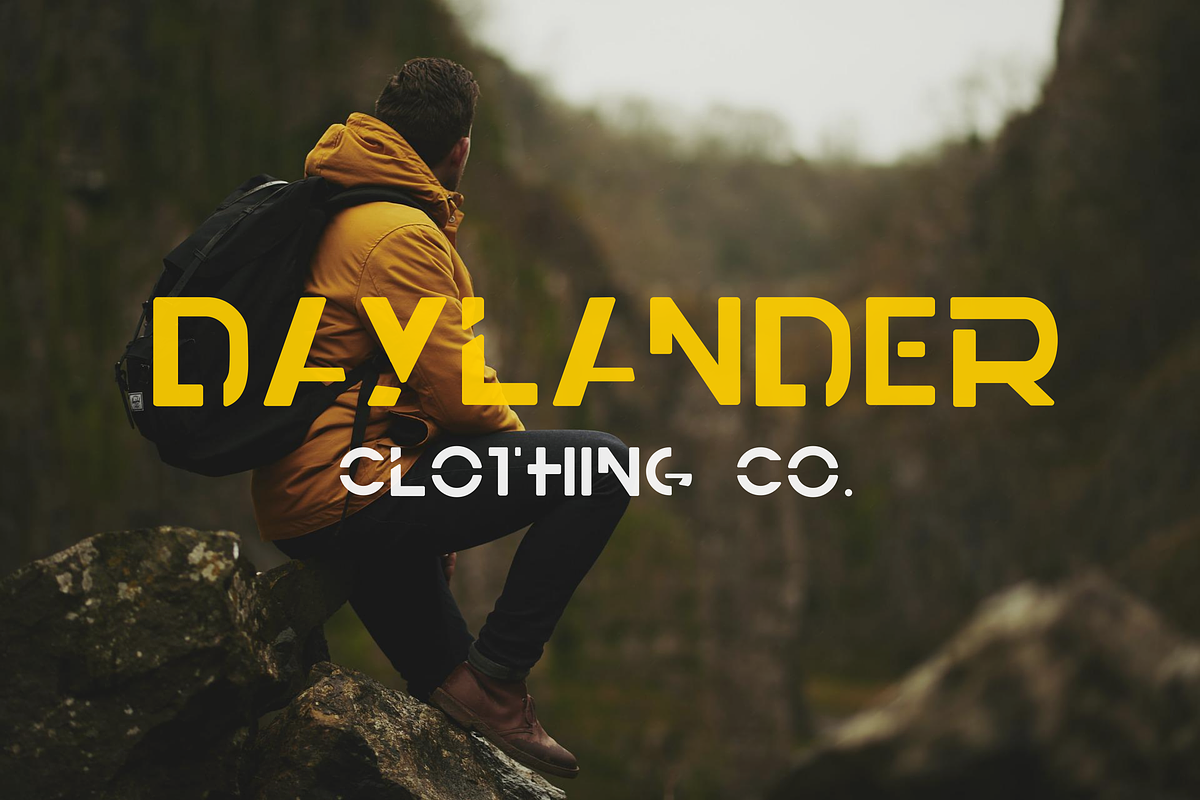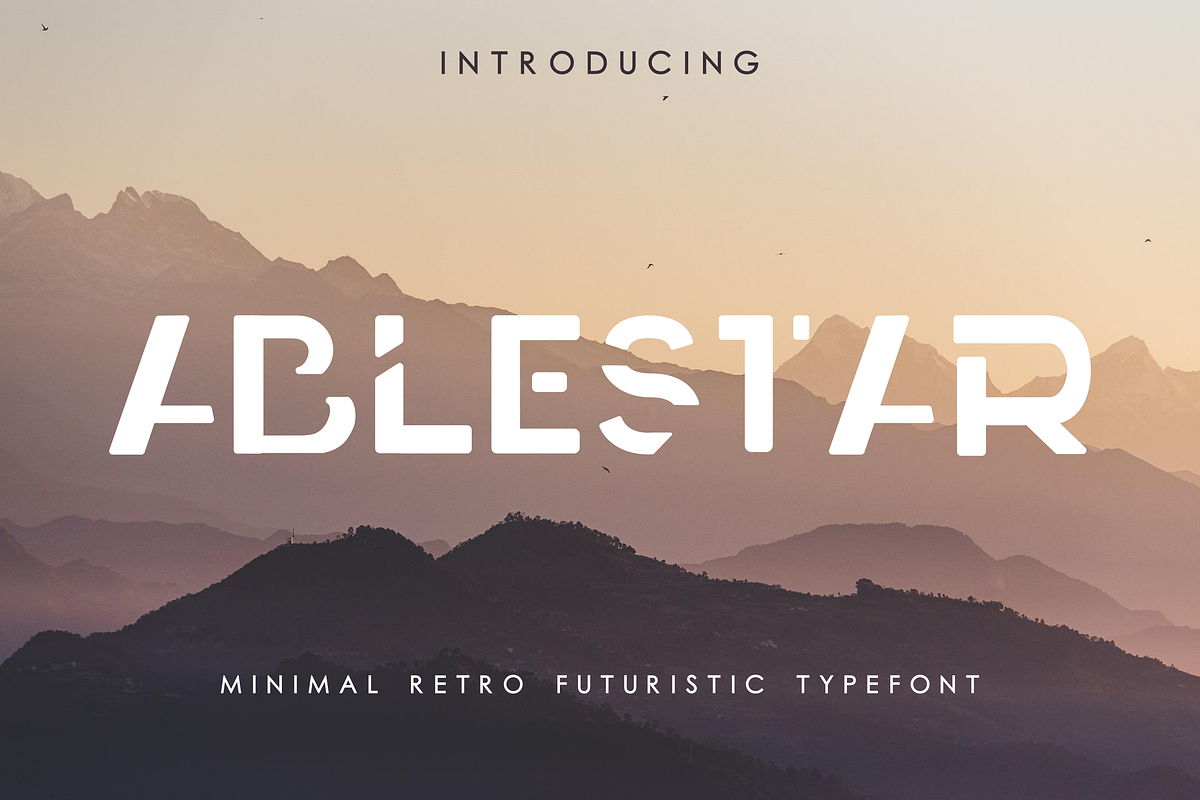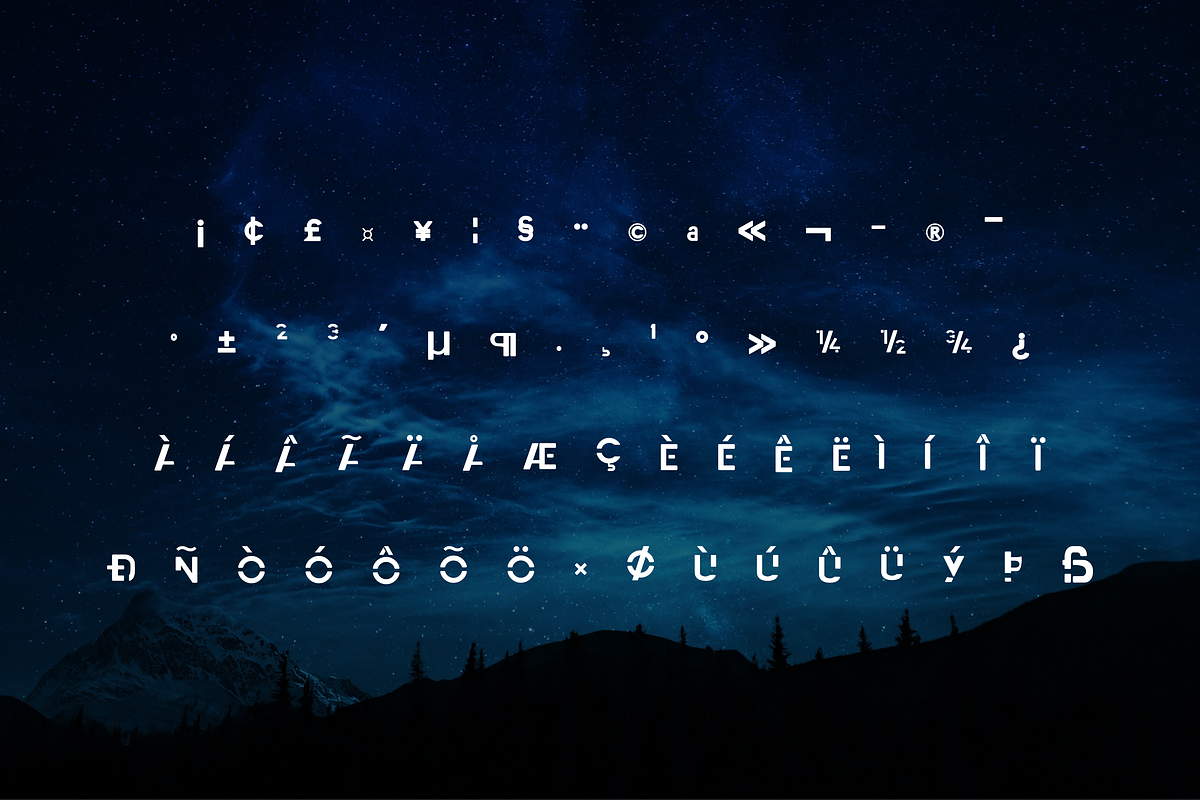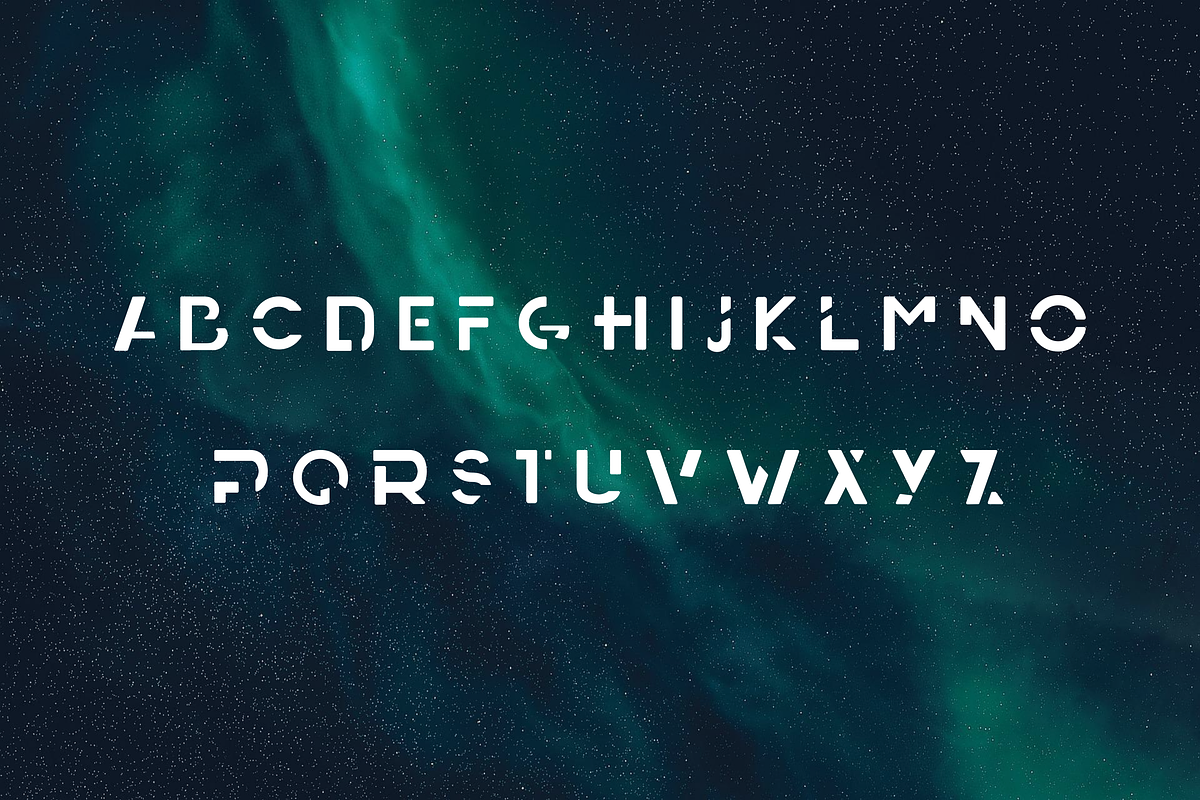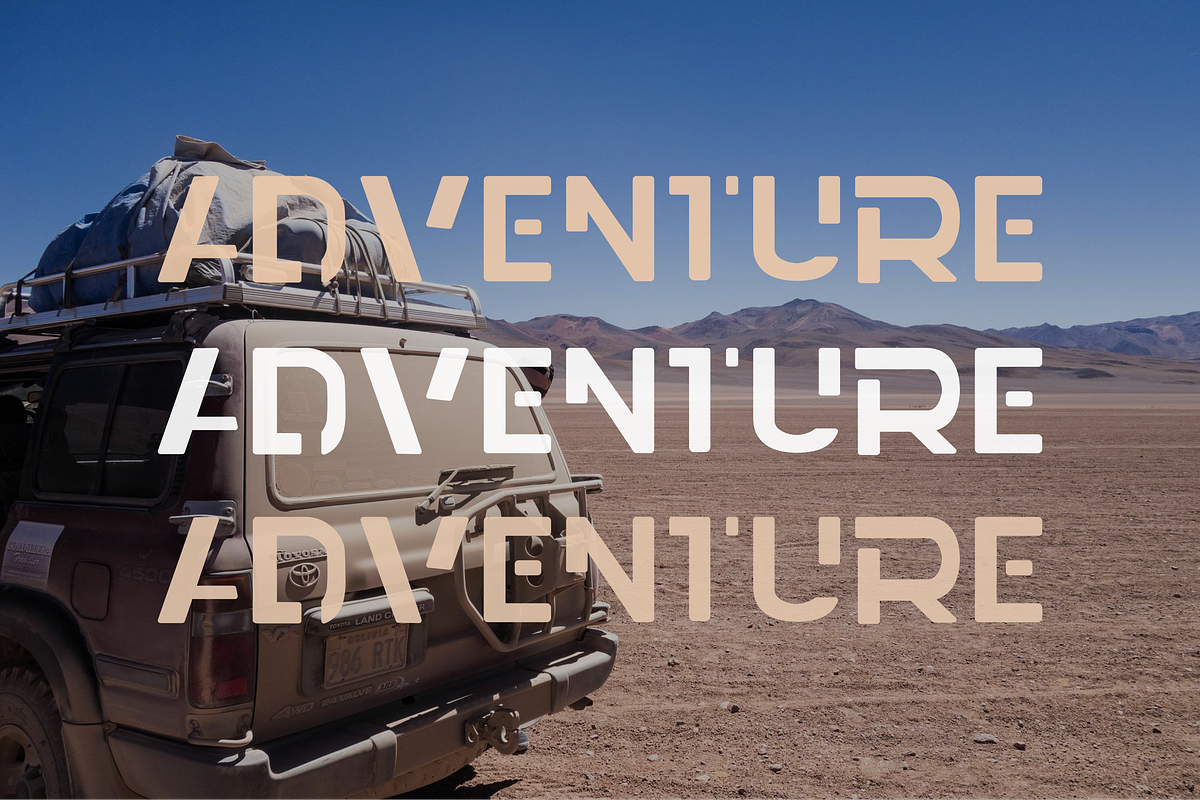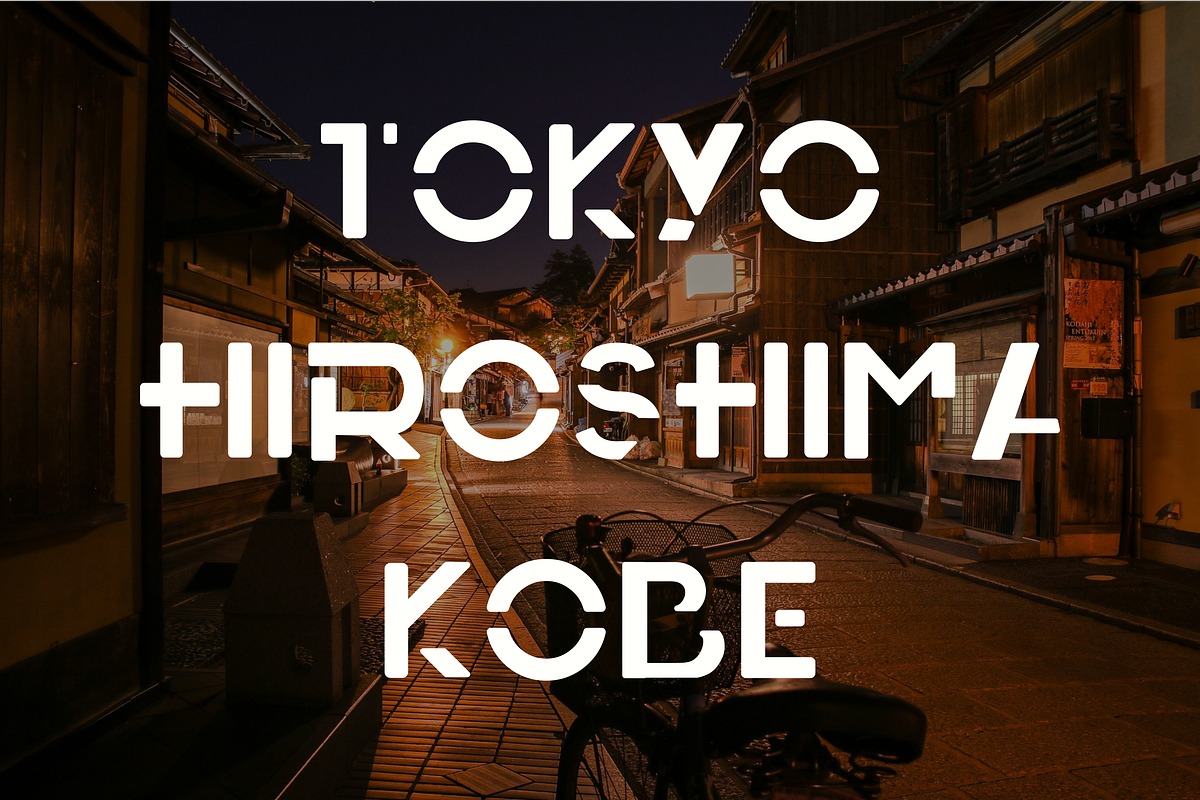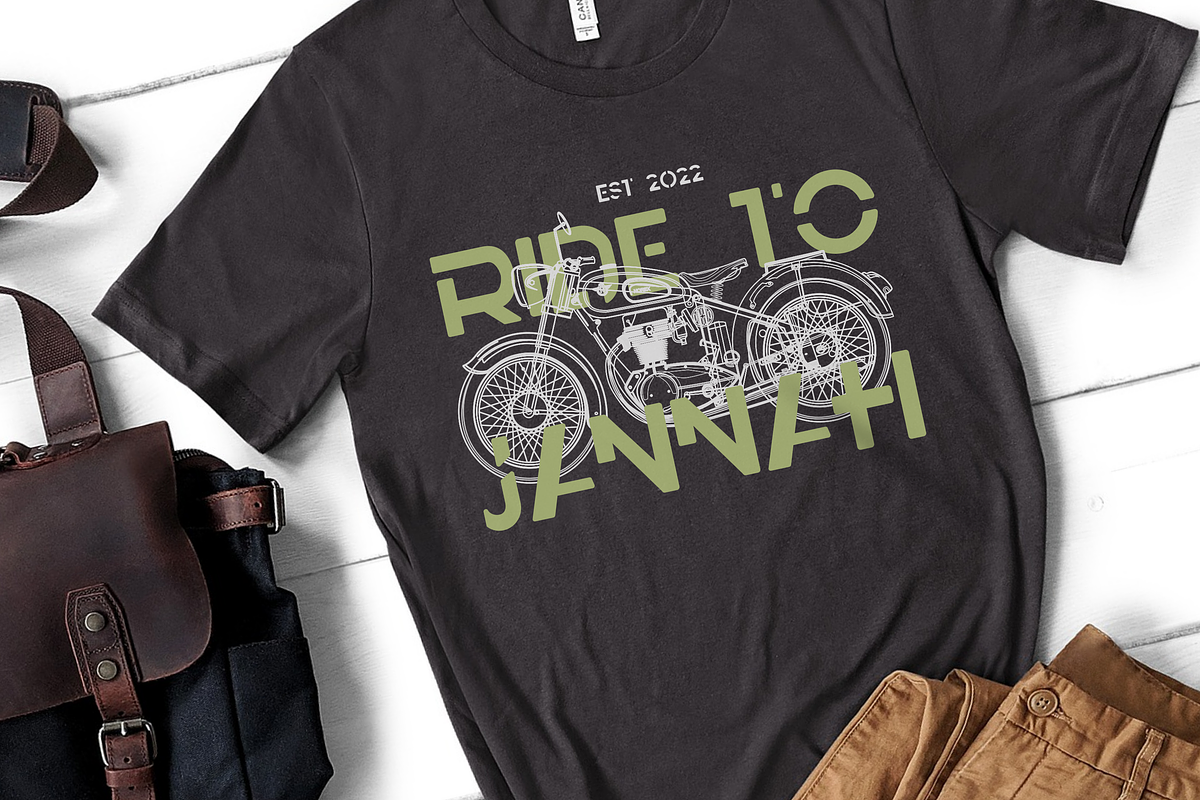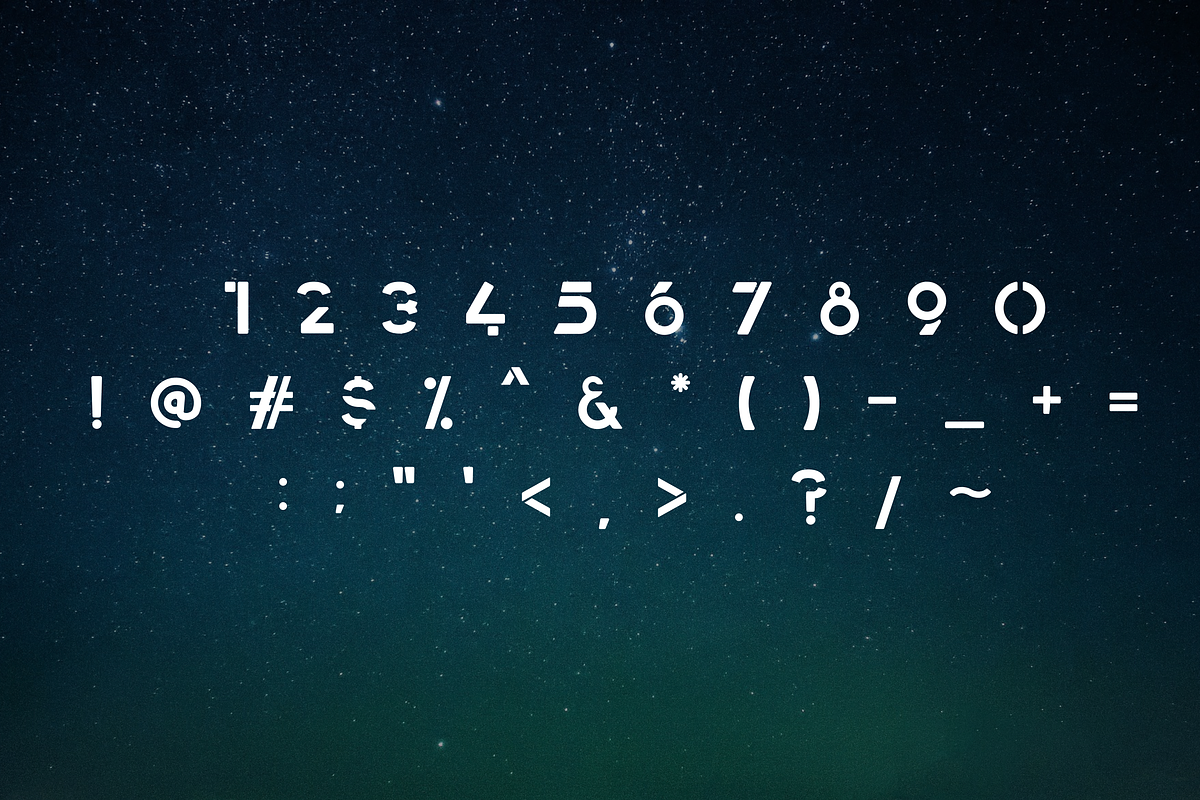
Ablestar - Retro Futuristic Typefont
Ablestar font is retro futuristic style of san serif typeface for Display font or logo font, it been simplified with little curved edge and a bit of semi negative space on the letter that making it oustanding and eye-cacthing, The Ablestar font can be used for wordmark logos, app, mastheads, poster, book cover tittle, web article, etc.